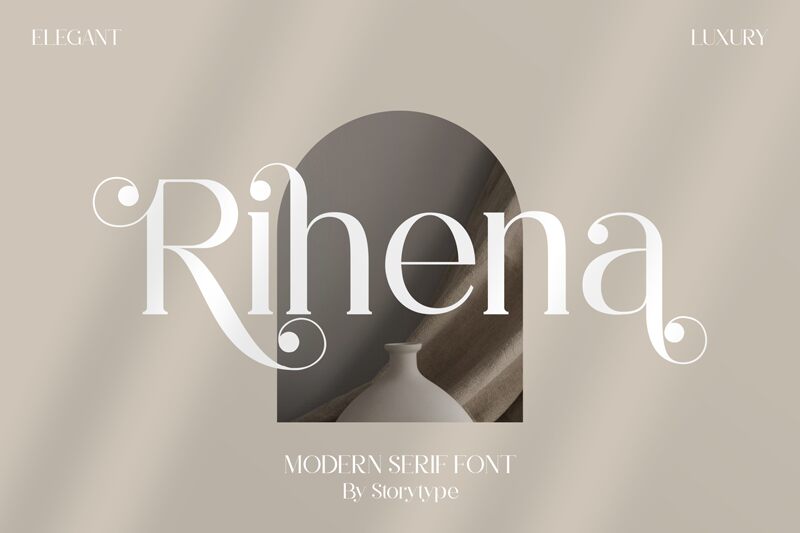
Rihena
Rihena is a modern serif font designed by Storytype Studio, perfect for those looking to add a sophisticated touch to their projects. The clean lines and elegant curves of this typeface make it suitable for both print and digital media, from business cards to website headers. With its semi-bold font weight and versatile width, Rihena can be used for anything from headlines to body text. Its timeless yet contemporary design makes it ideal for branding, editorial layouts, invitations, and more. Elevate your projects with the refined style of Rihena.